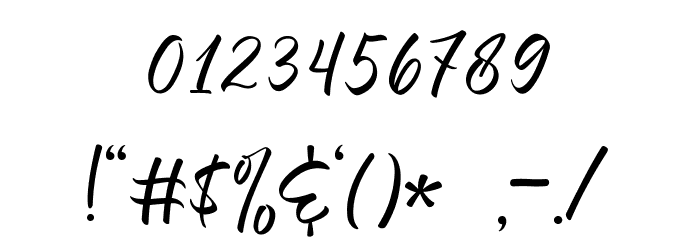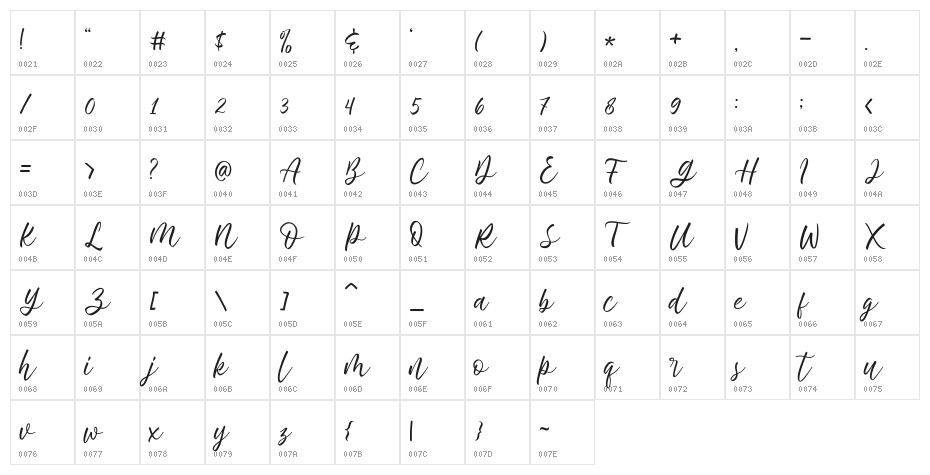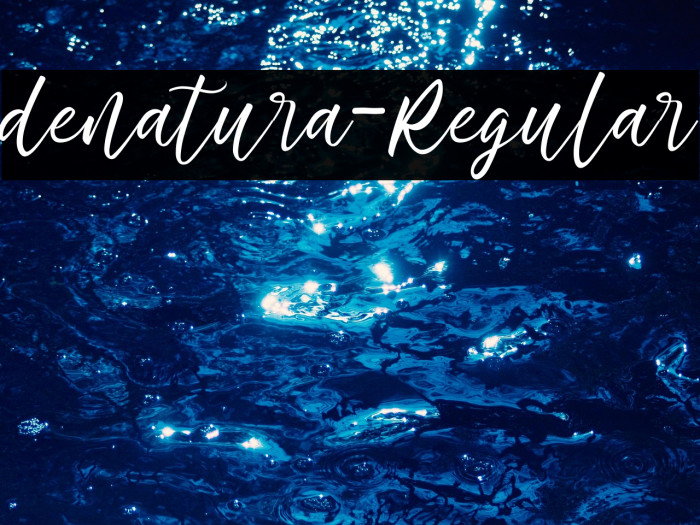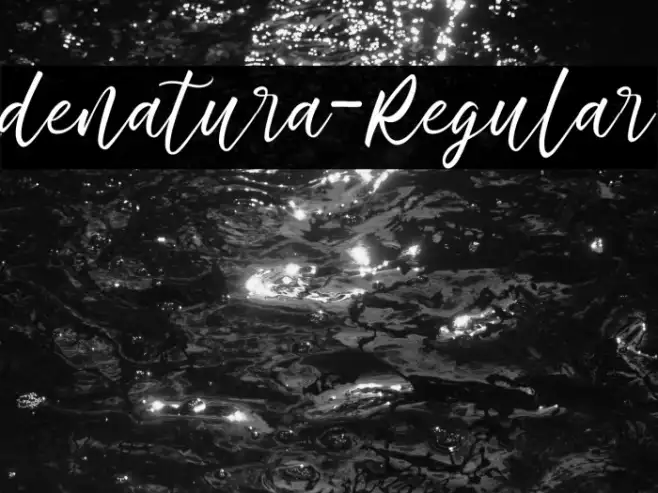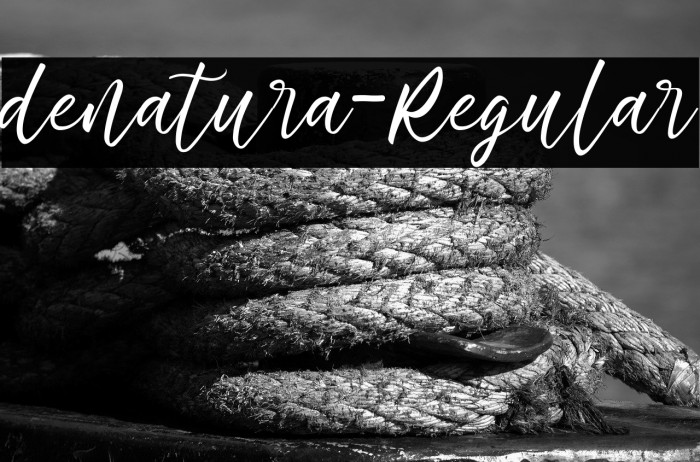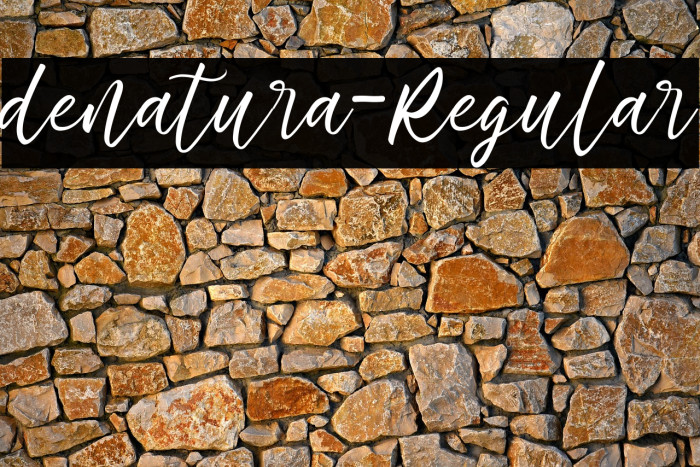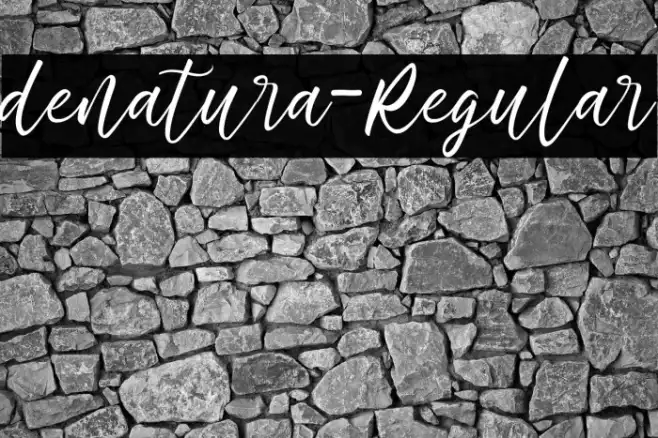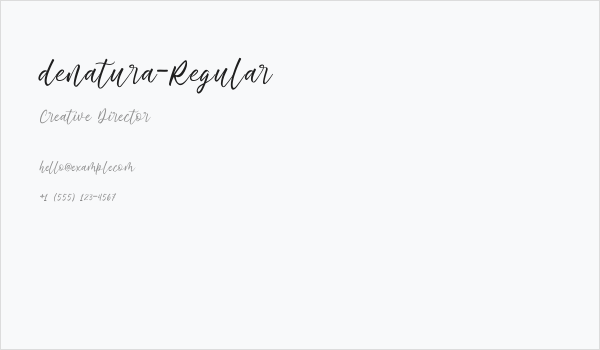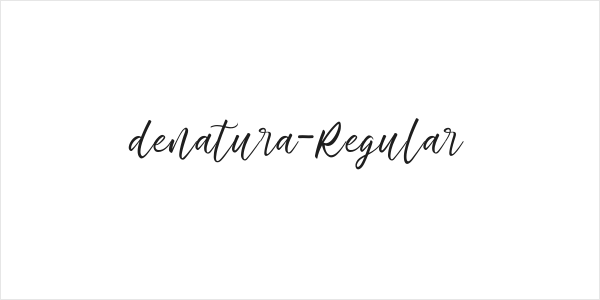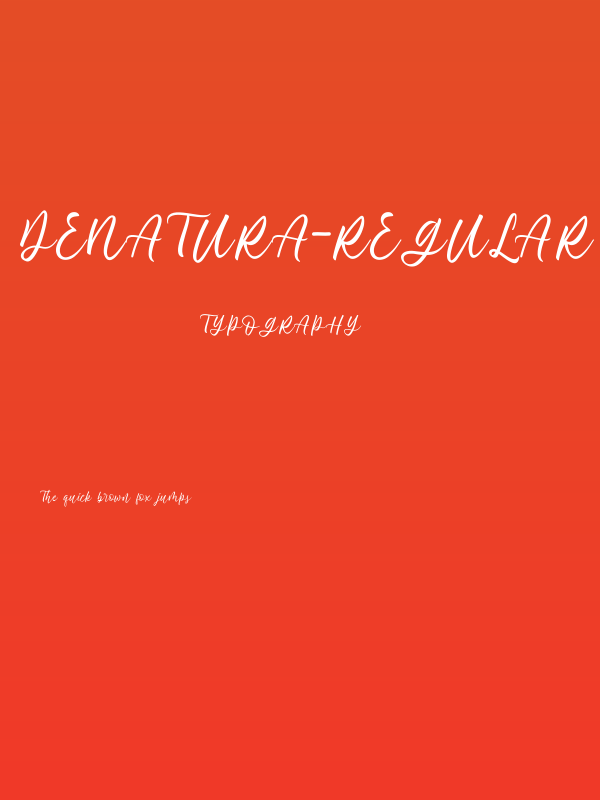
denatura-Regular Font
denatura-Regular Description
This font features a flowing, cursive style with a handwritten appearance. The letters are elegantly connected, giving it a smooth and fluid look. The uppercase characters are slightly more ornate, while the lowercase letters maintain a consistent rhythm. The numerals and special characters blend seamlessly with the alphabet, maintaining the font's cohesive style. The overall design is both stylish and legible, making it suitable for various creative applications.
Use CaseLogos, Invitations, Decorative text
Proposed ProjectsIdeal for wedding invitations, greeting cards, branding, and logo design.